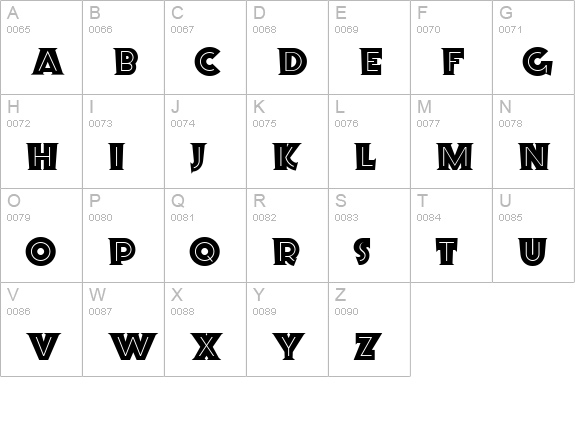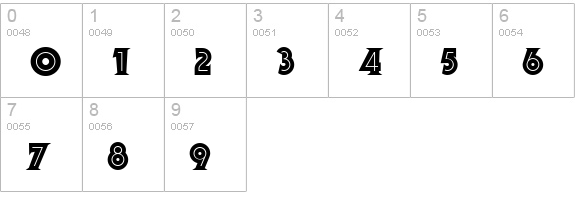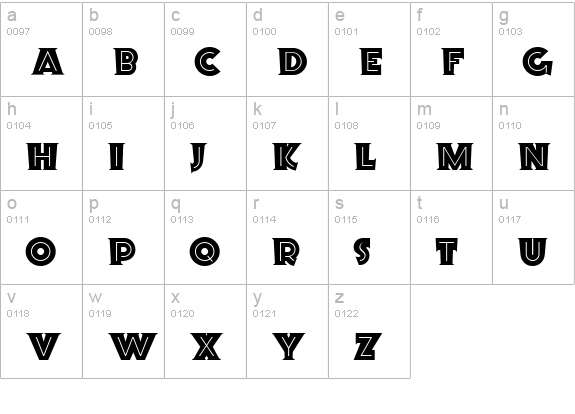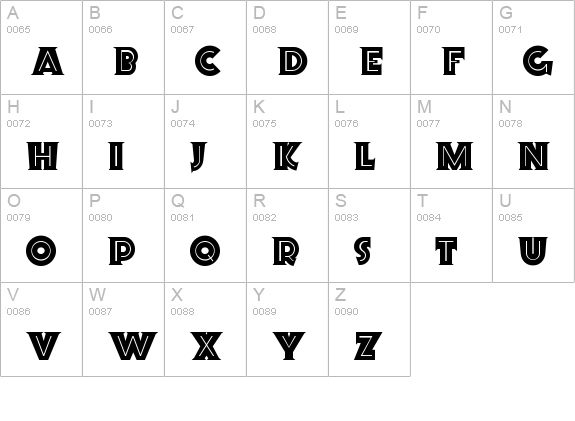
Orion Radio NF Font Details
Orion Radio NF is a contemporary and stylish font that exudes a retro charm with a modern twist. Its sleek and bold letterforms make a statement while maintaining readability and versatility. This unique typeface is perfect for branding, headlines, posters, and any design project that calls for a touch of sophistication. The best part? Orion Radio NF is completely free for personal and commercial use. You can download this font at FontsMarket.com and start using it in your projects today. Don't miss out on the opportunity to add this striking font to your collection without spending a dime.